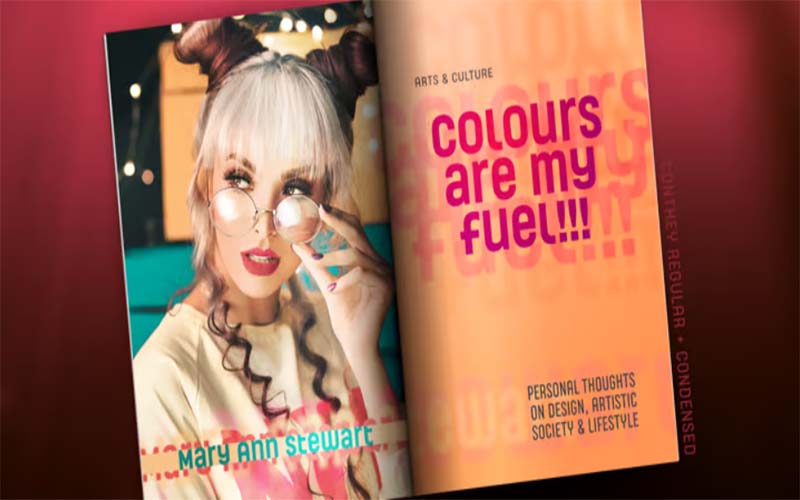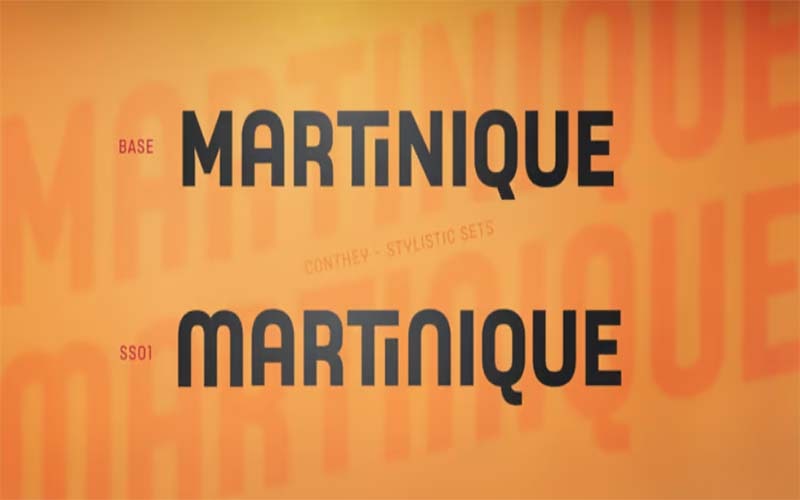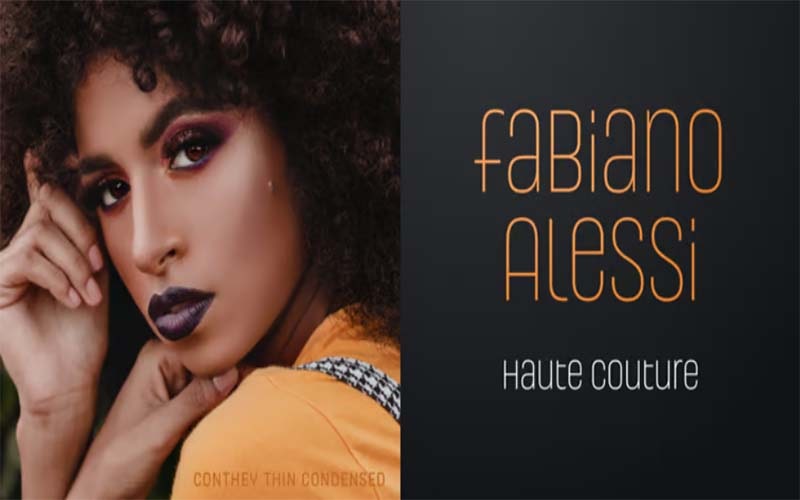
Conthey Font is an elegant sans-serif typeface. It looks stylish and more glorious because of its name which has classic, elegant, bold, and clean letters.
The famous designer Roch Modrzejewski took charge of creating this font for the first time. This stunning font consists of stylish and elegant characters.
This amazing font contains a single style such as the “Conthey Regular” Font style. This font is well-known throughout the world because of its design.
This excellent typeface contributes to the professional appearance of your work. Its stylish design makes it perfect for a variety of beautiful word compositions.
An amazing font contains 586 numbers glyphs and 1000 units per EM including all Basic Latin, Latin-1 Supplement, General Punctuation, & Letterlike Symbols.
This elegant font is used in various industries including food, travel, hospitality, fashion, healthcare, sports, lifestyle, music, art, entertainment, and items for young people.
A free version font contains 453 strong characters including 26 uppercase and lowercase letters, punctuations, and numbers. Let’s examine its gorgeous texture.